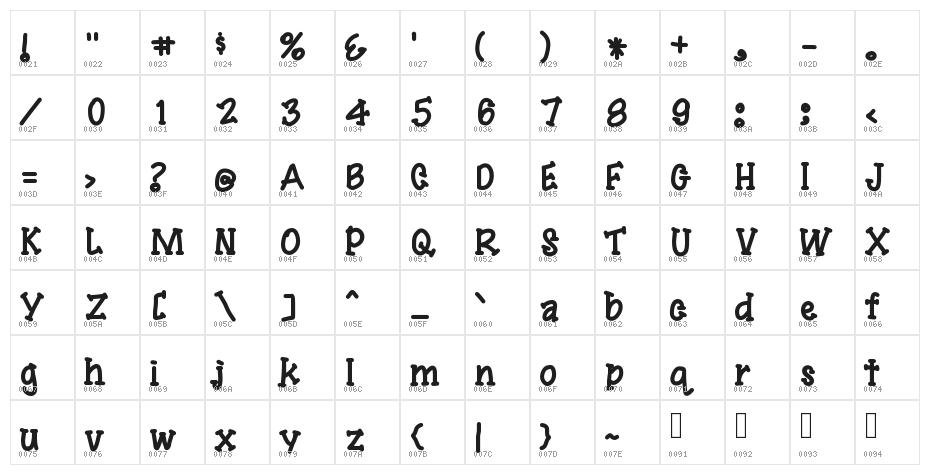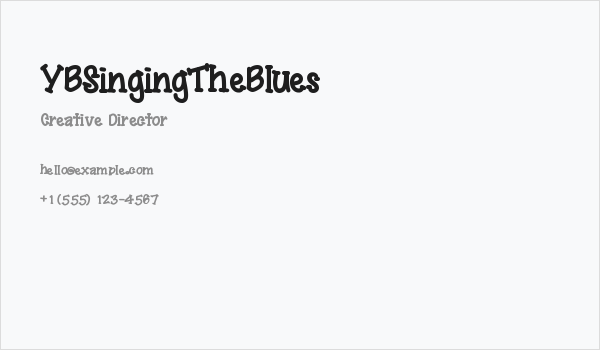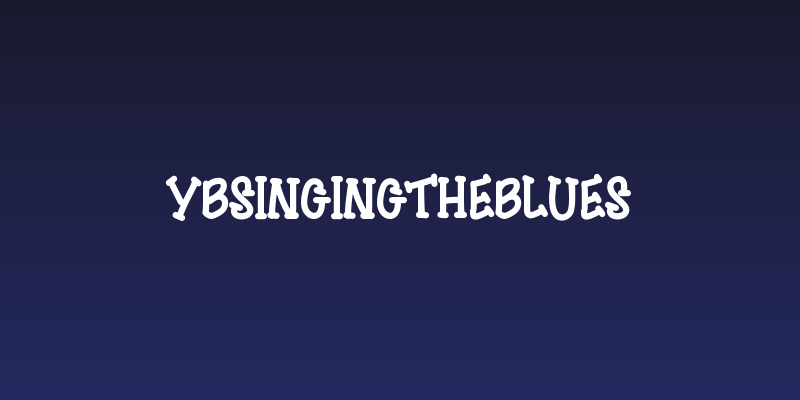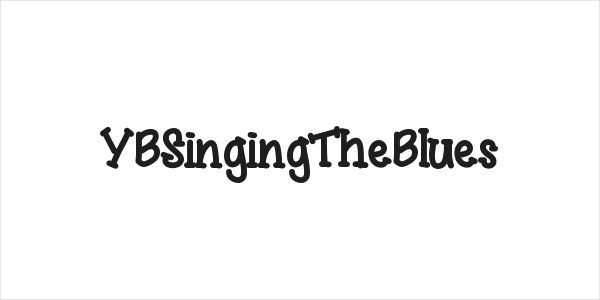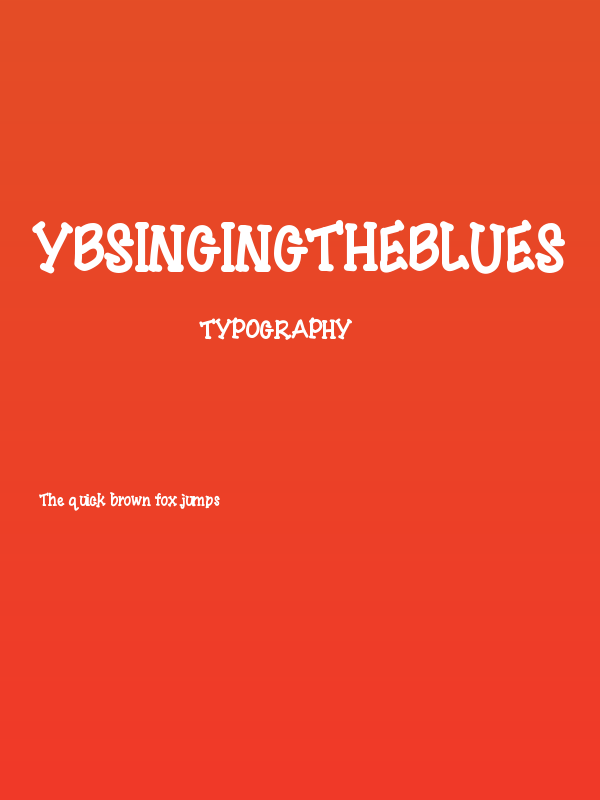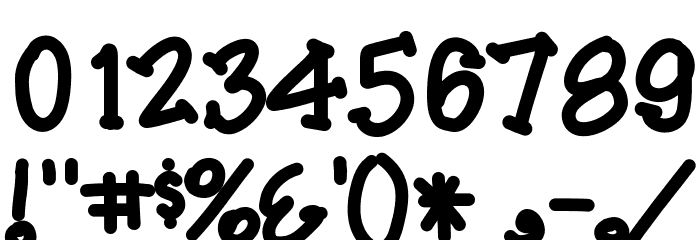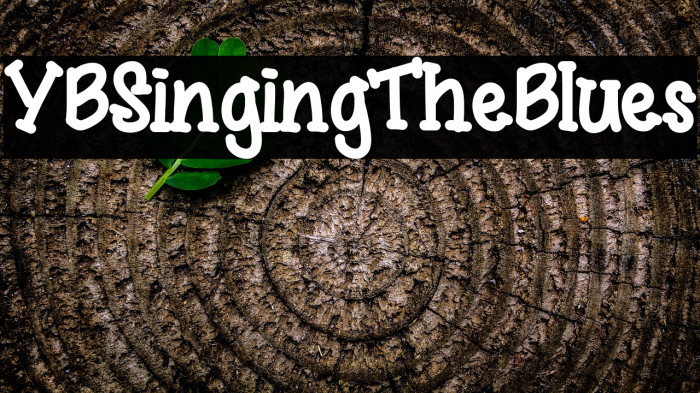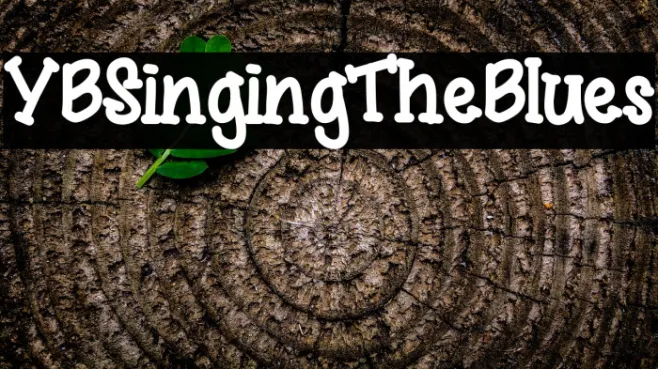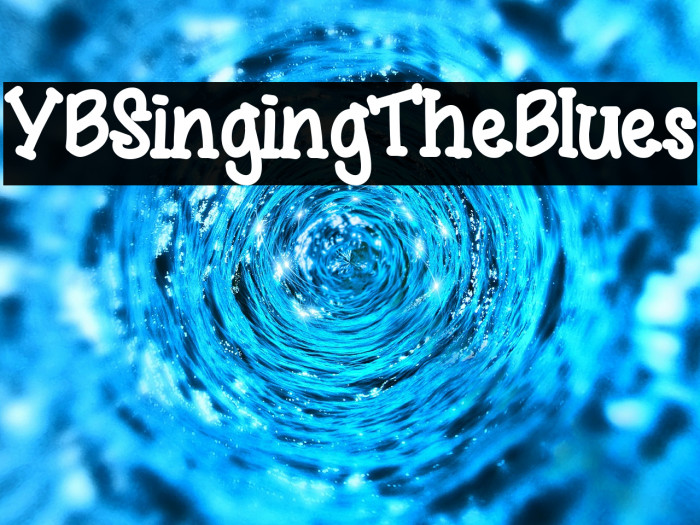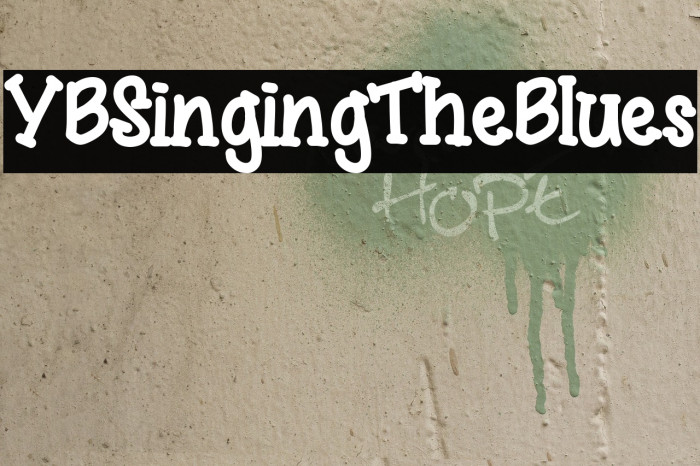
YBSingingTheBlues Font
YBSingingTheBlues Description
This font features a playful and whimsical style with bold, rounded characters. The strokes are thick and consistent, giving it a cartoonish and informal appearance. Each letter has a unique, hand-drawn quality, with slight variations that add to its charm. The uppercase and lowercase letters maintain a consistent height, and the numbers are equally bold and expressive. Special characters are creatively designed, fitting seamlessly with the overall style. This font exudes a sense of fun and creativity, making it ideal for projects that require a lighthearted and engaging look.
| Overall Style | Playful and Whimsical |
| Proposed Projects | Ideal for children's books, comic strips, playful branding, and creative posters. |